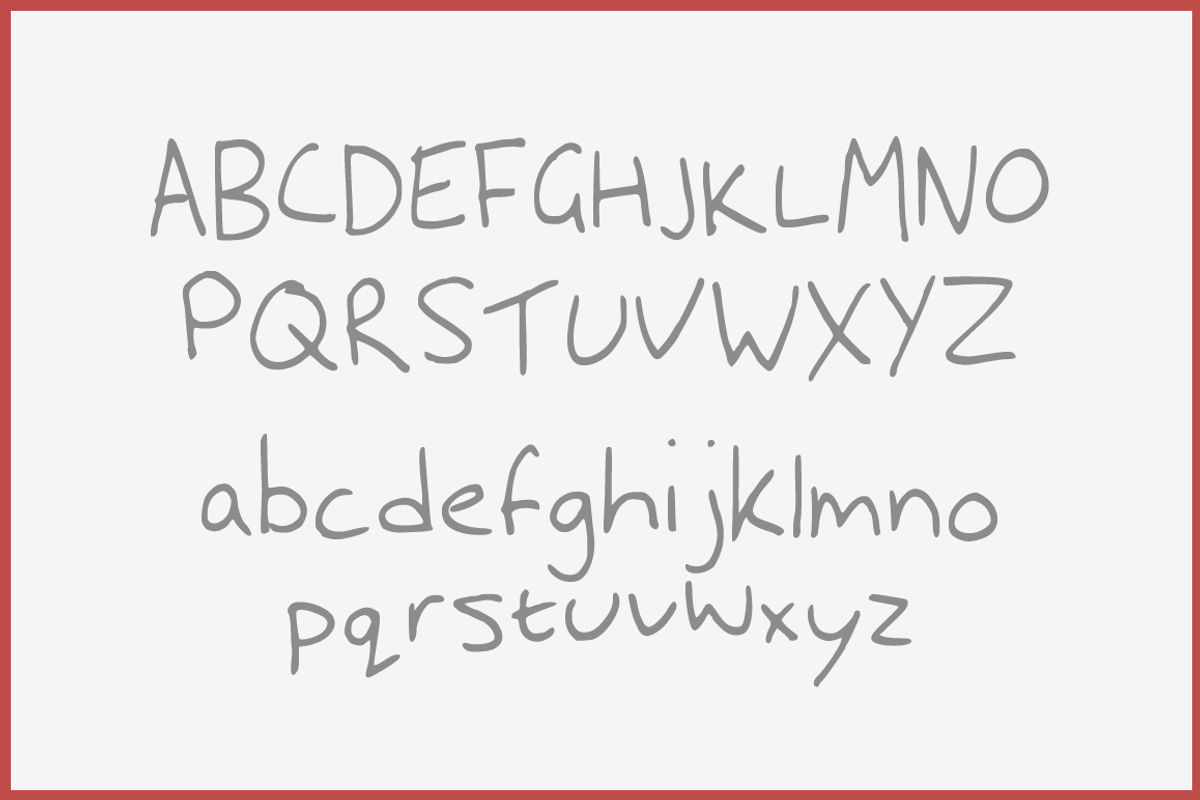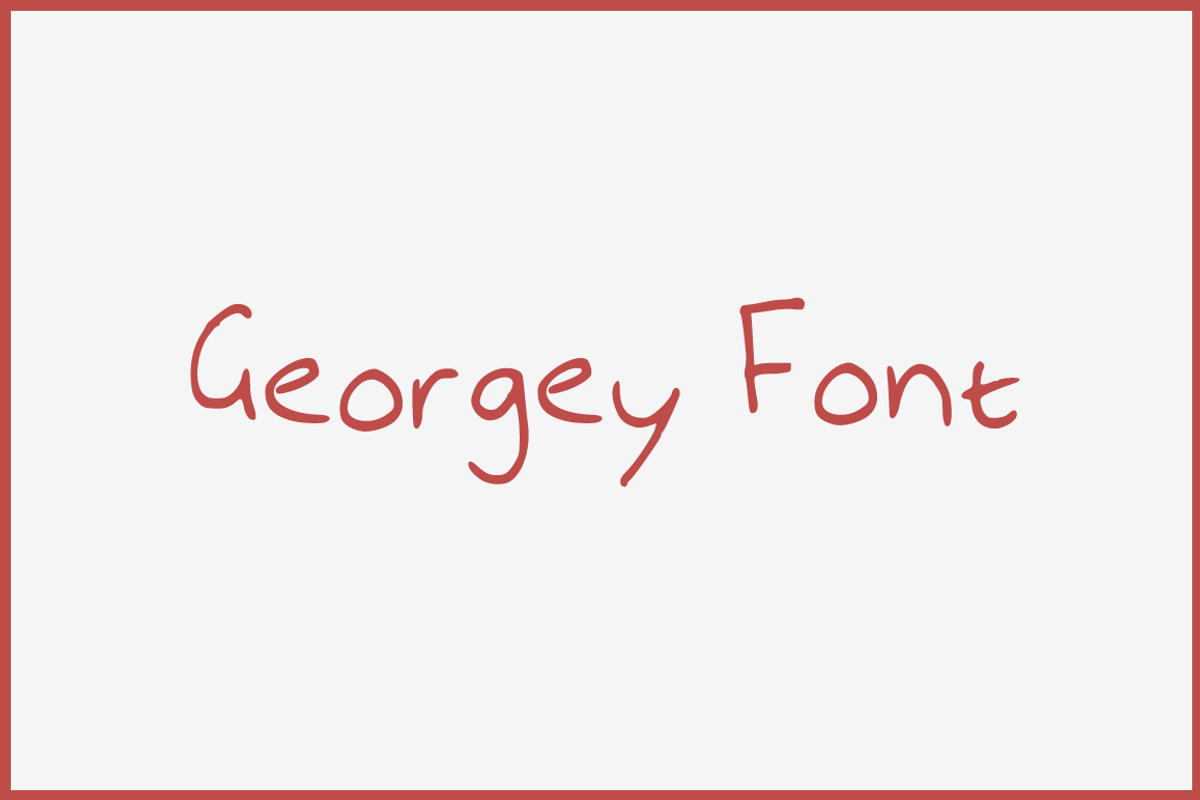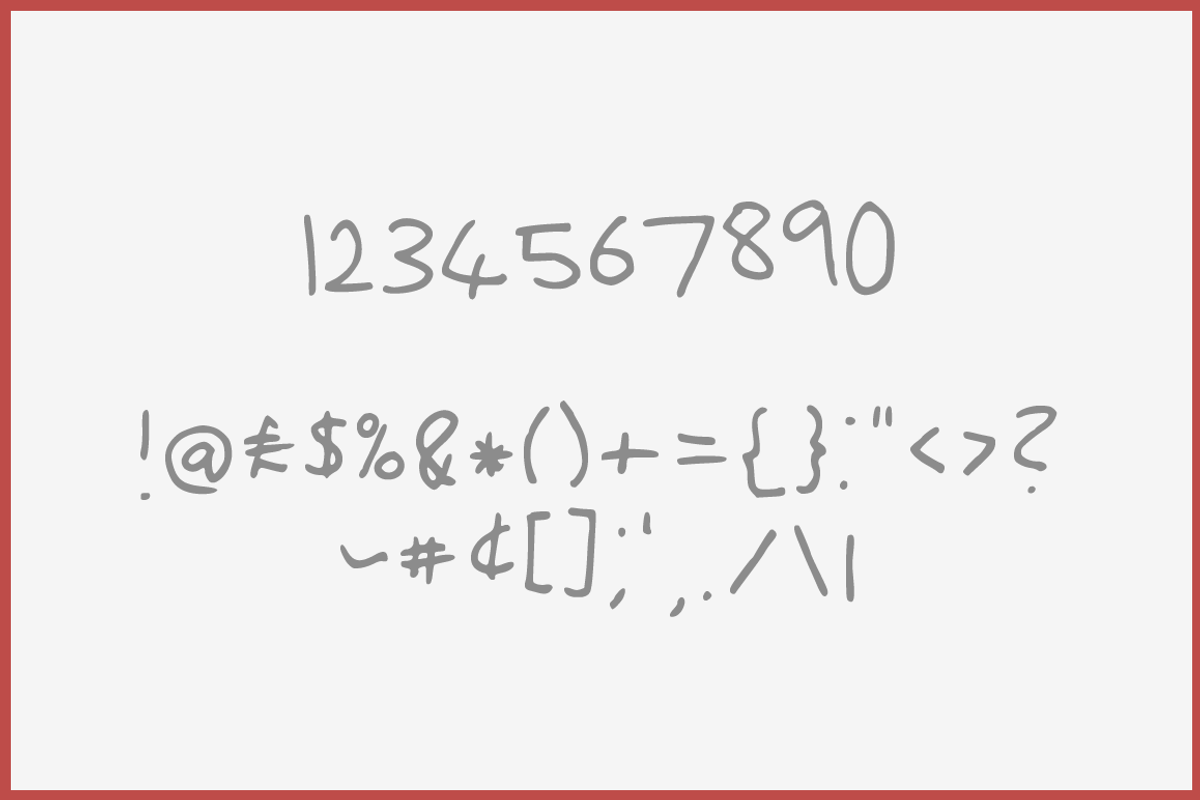
Georgey Font
Georgey Font by George Dunkley is a font selected for branding, posters, packaging, typography.
- Uppercase, lowercase, numbers and basic punctuation.
Why Georgey Font is worth a look
Georgey Font by George Dunkley fits naturally into Branding, posters, packaging, typography.